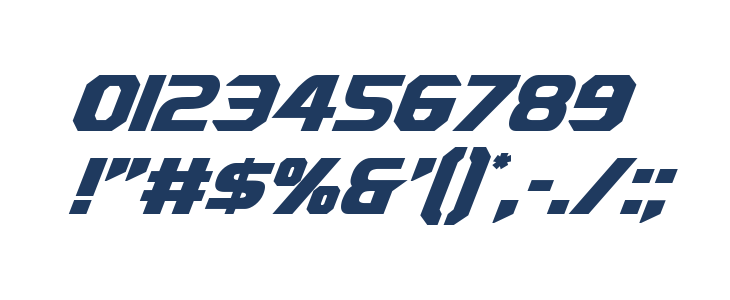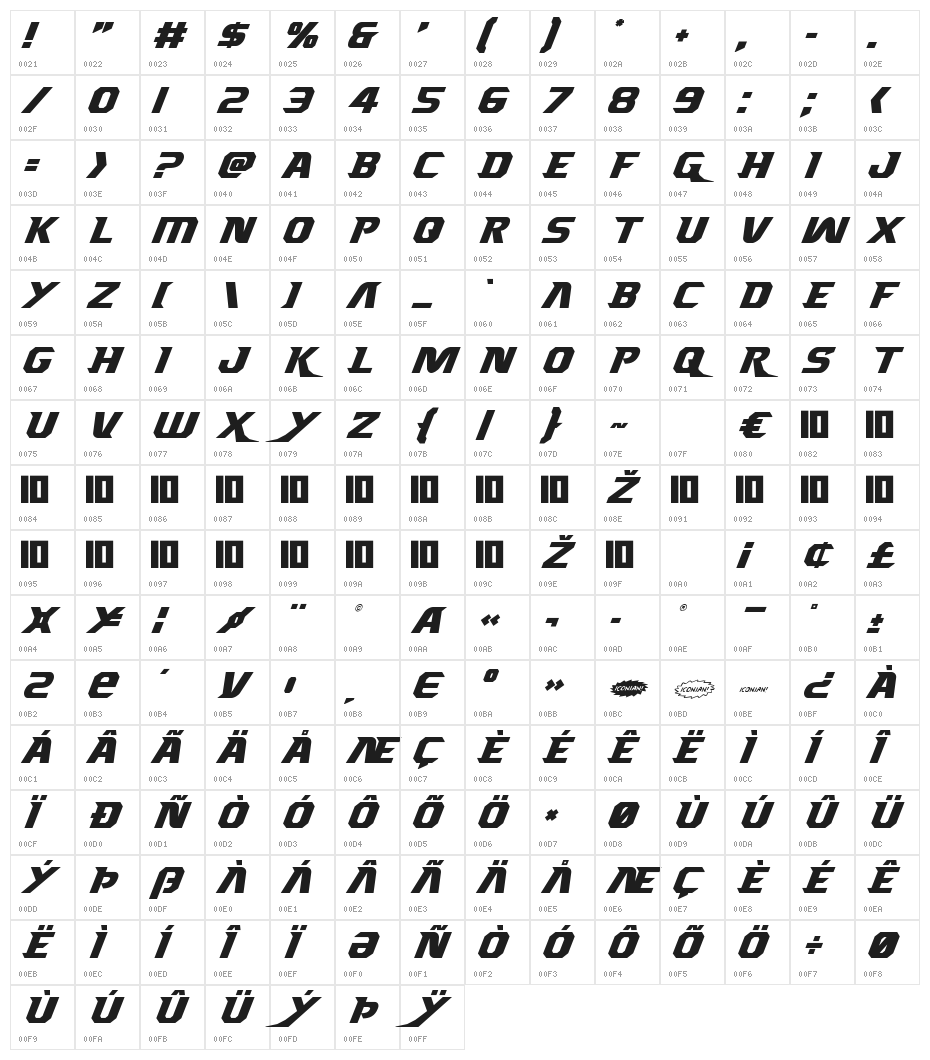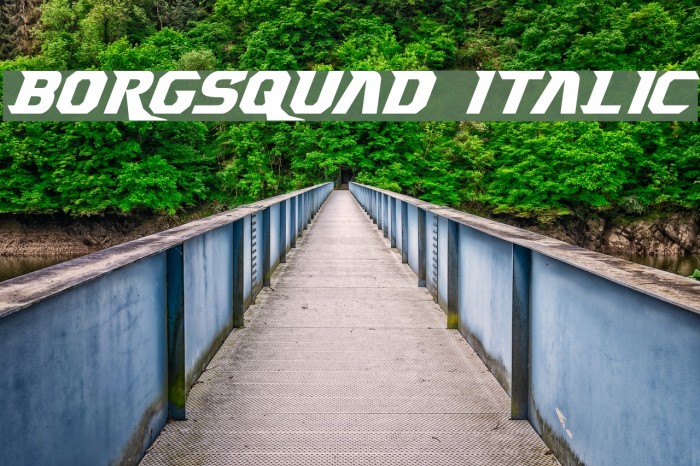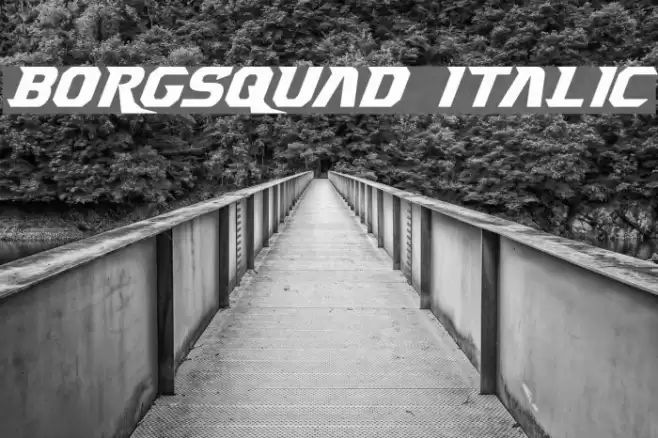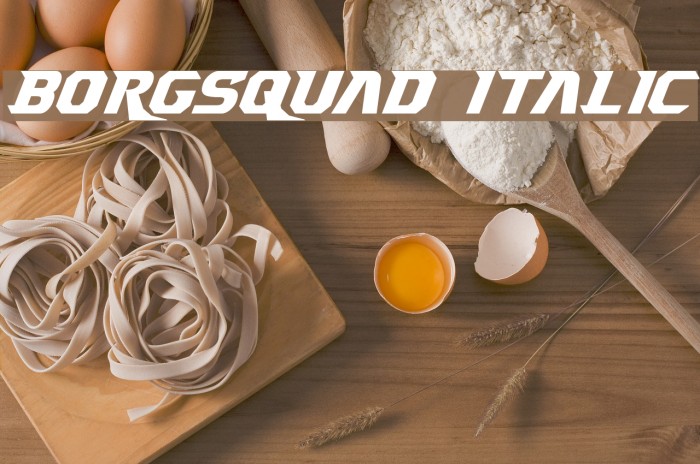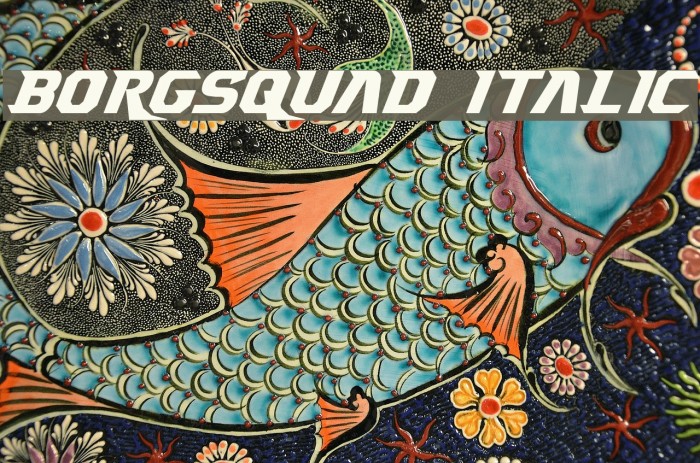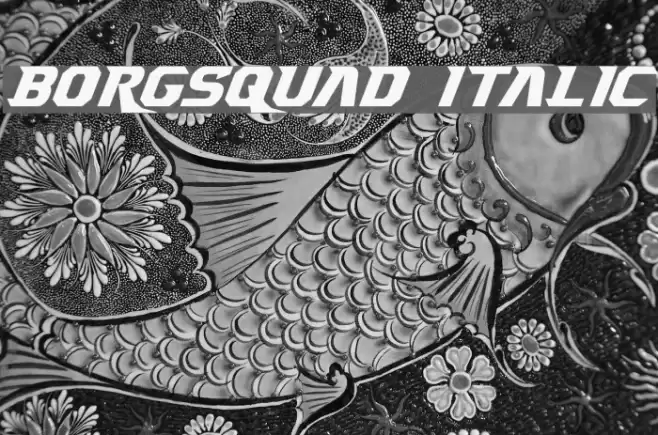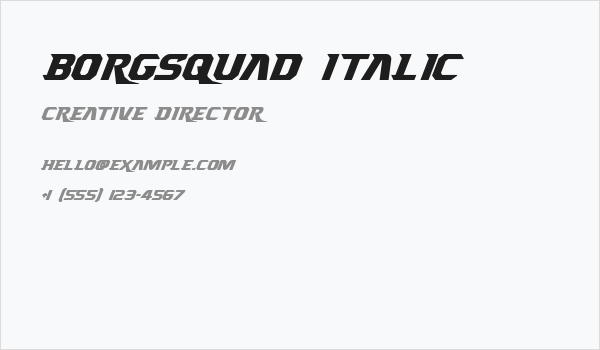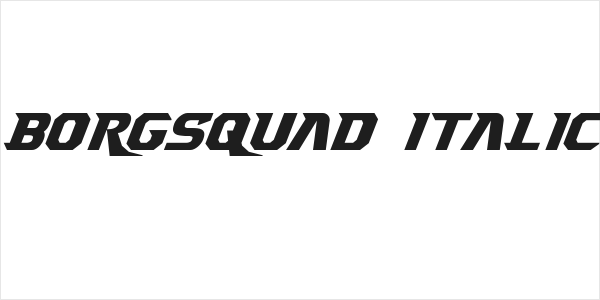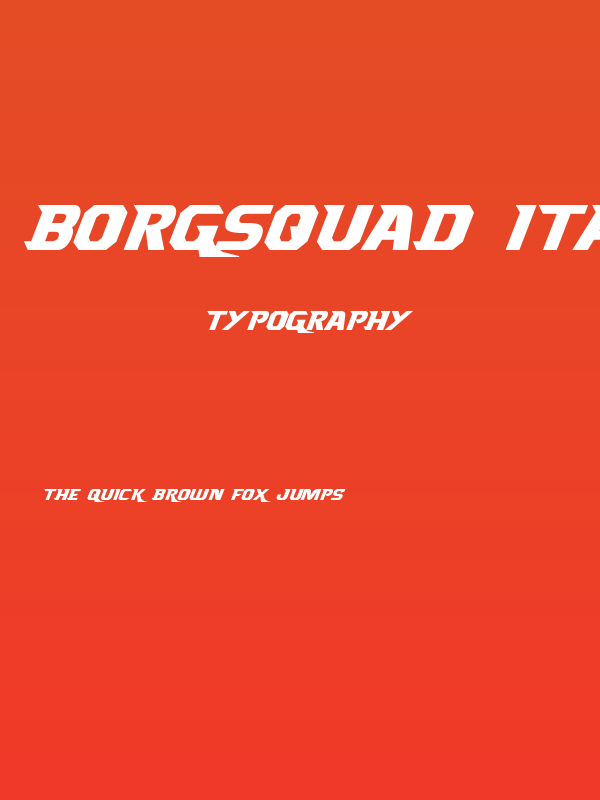
Borgsquad Italic Font
Borgsquad Italic Description
This font features a bold, italicized style with sharp, angular lines and a futuristic appearance. The characters are designed with a strong forward slant, giving a sense of motion and speed. The uppercase letters are particularly striking, with unique geometric cuts and edges that enhance the dynamic look. The numbers and special characters maintain this bold and edgy design, ensuring consistency across all elements. The font's overall aesthetic is modern and aggressive, making it suitable for projects that require a strong visual impact.
| Proposed Projects | Ideal for sports branding, video game titles, sci-fi themed designs, and dynamic posters. |